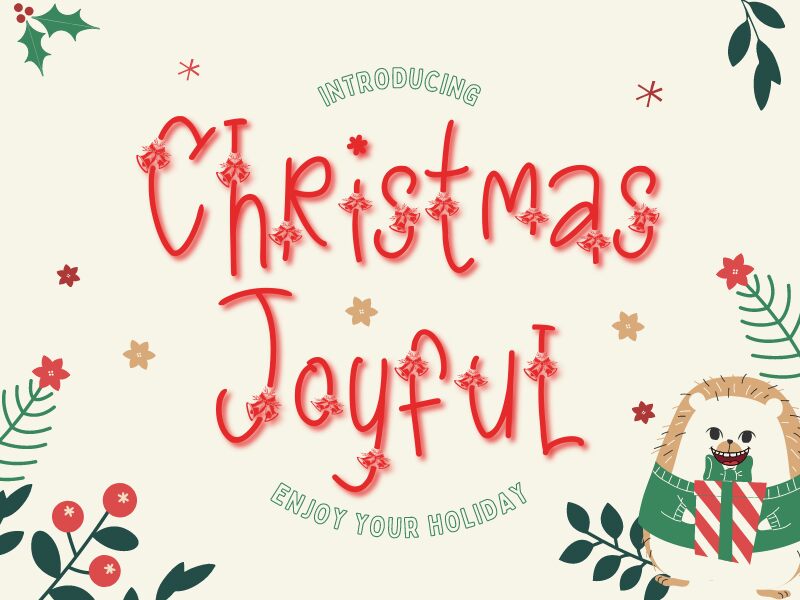
Christmas Joyful - Personal Use
Christmas Joyful font, designed by Creaditive Design, is the perfect addition to your festive projects. Its light weight and decorative style evoke a playful and cheerful holiday spirit. This font is suitable for a variety of projects such as Christmas cards, invitations, flyers, and social media graphics. You can use it to add an extra touch of joy to your designs or create a full-on Christmas theme. Spread the Christmas cheer with Christmas Joyful font!